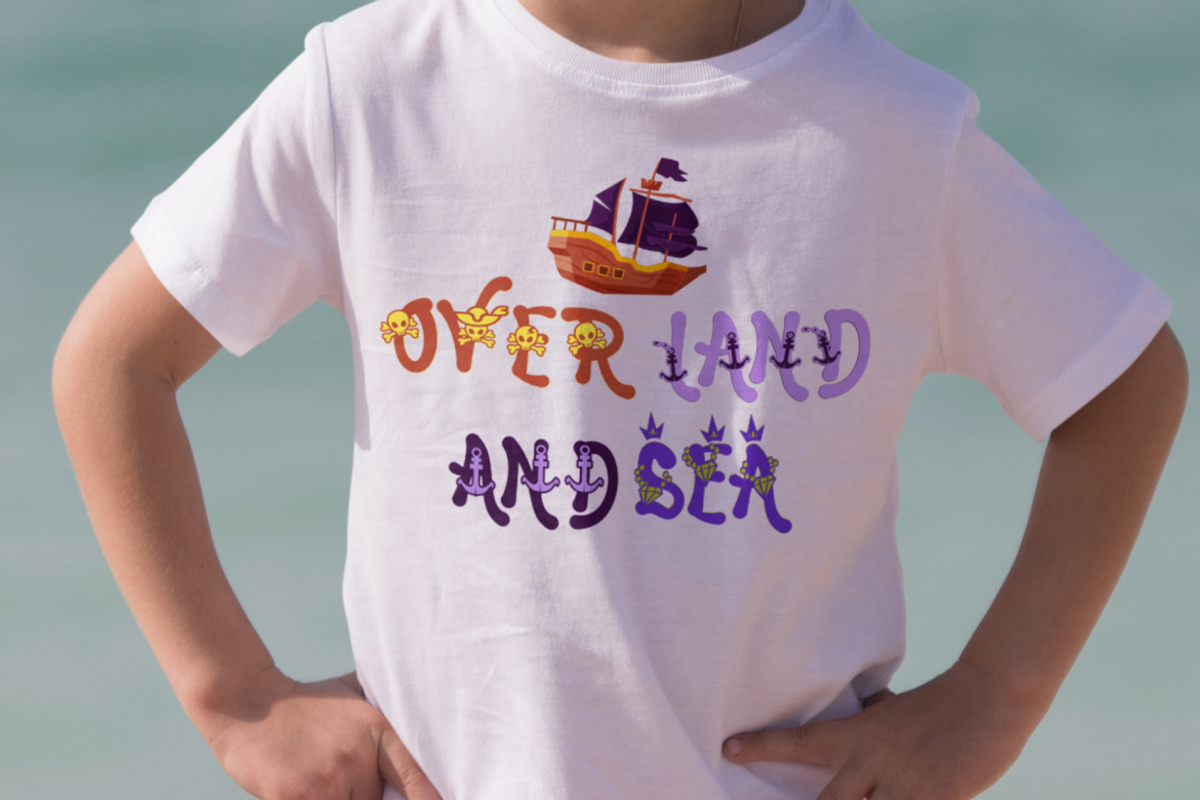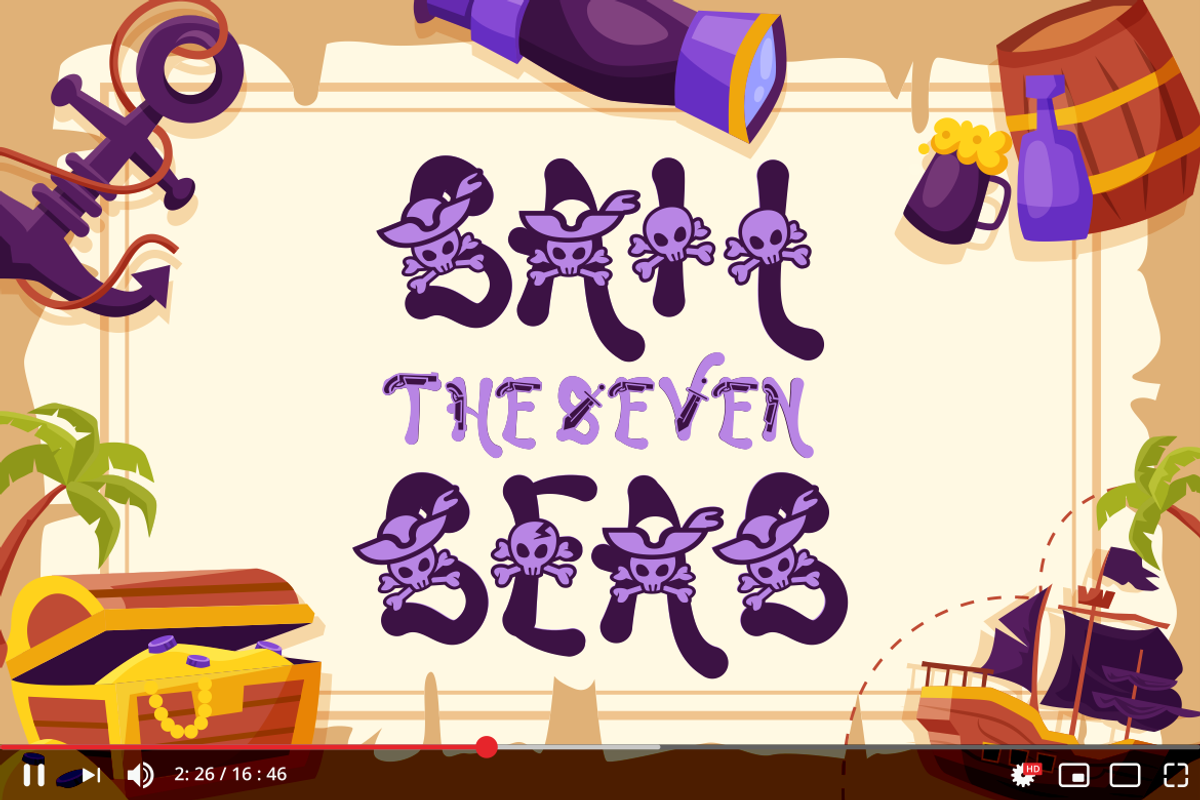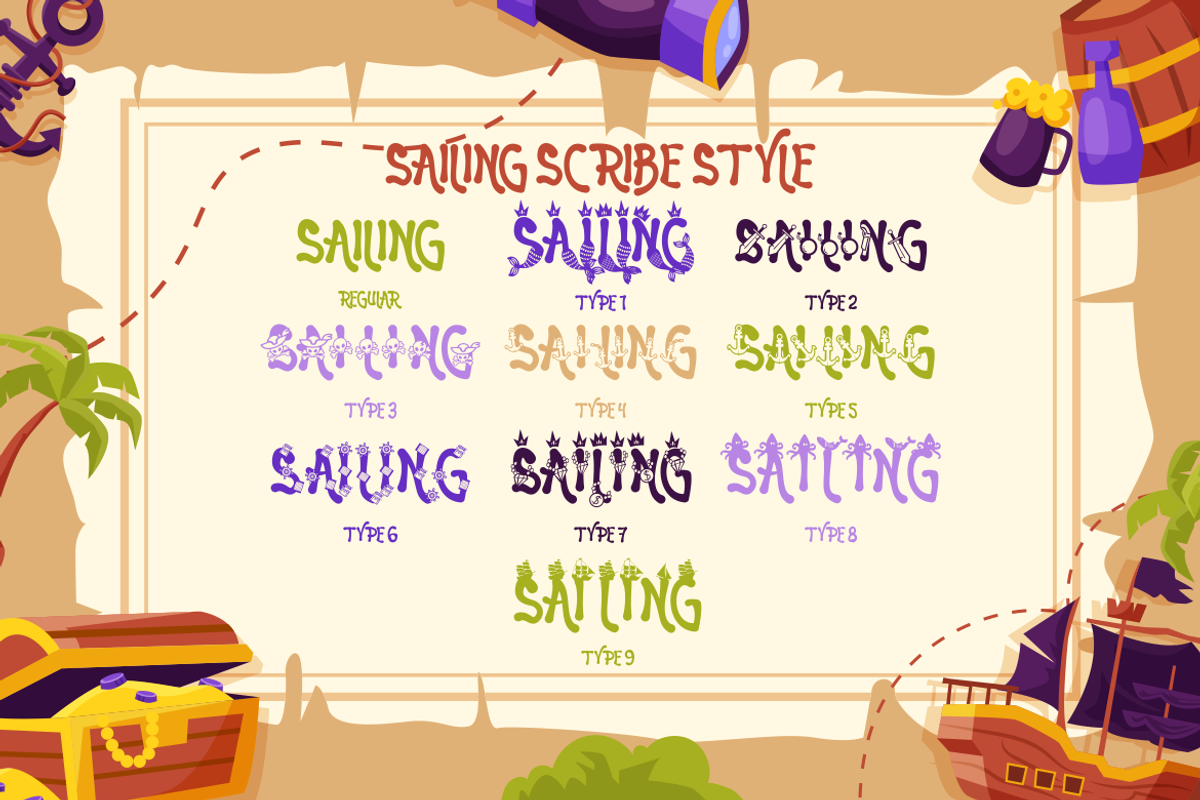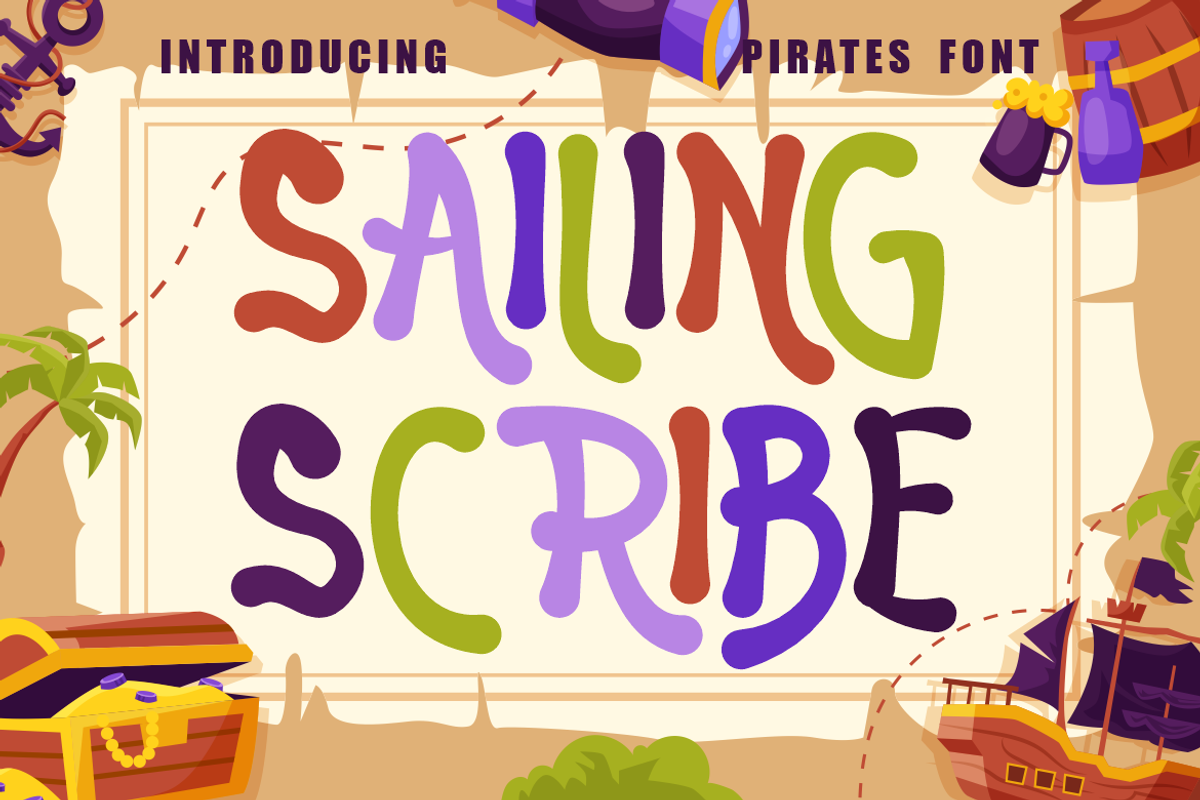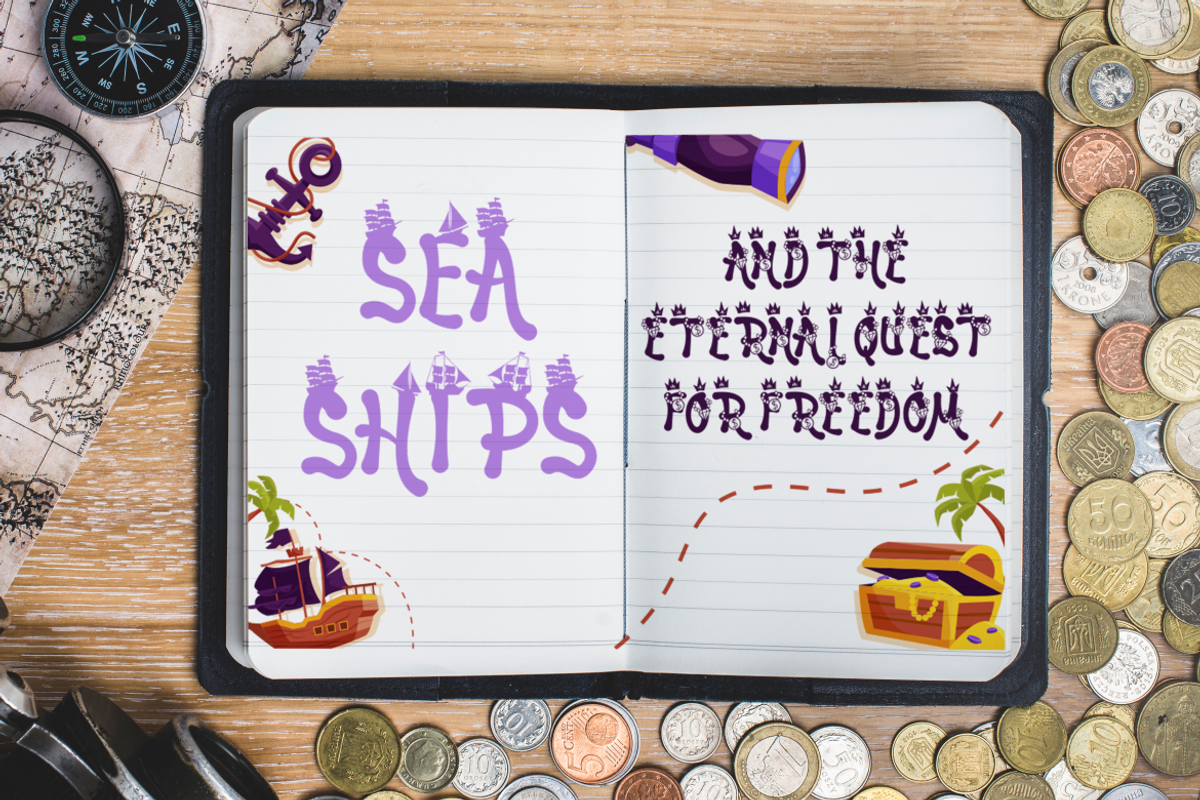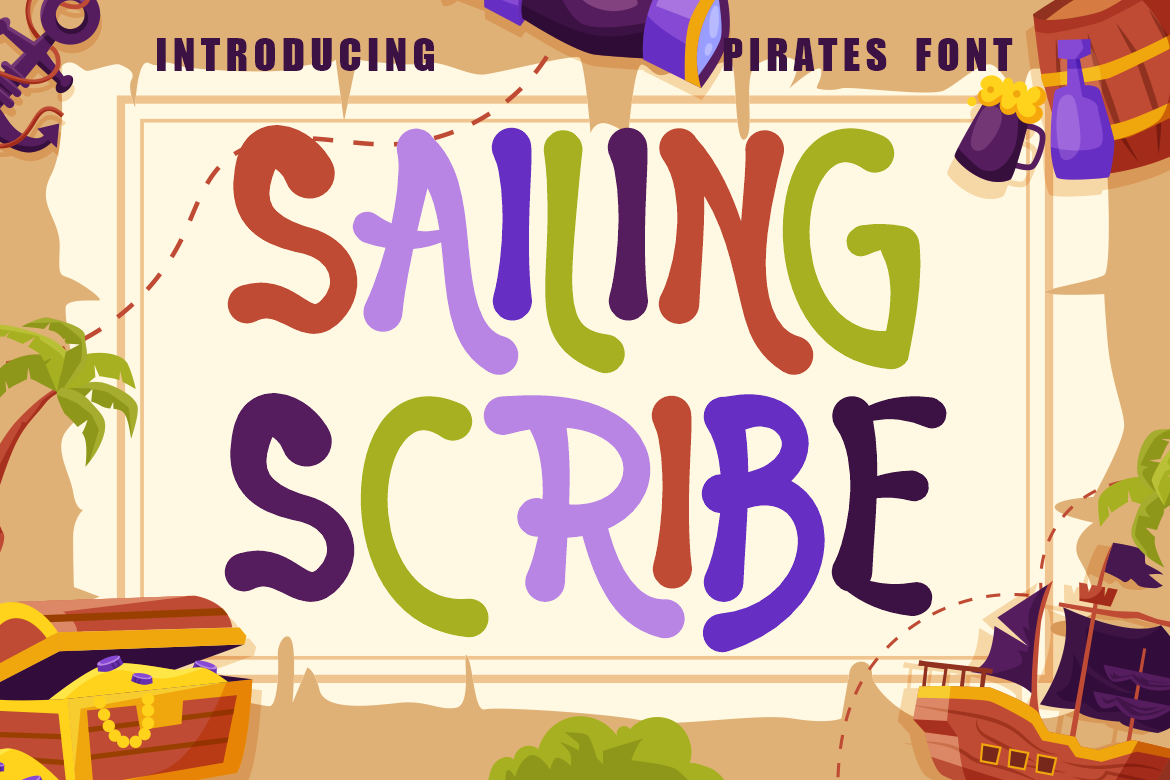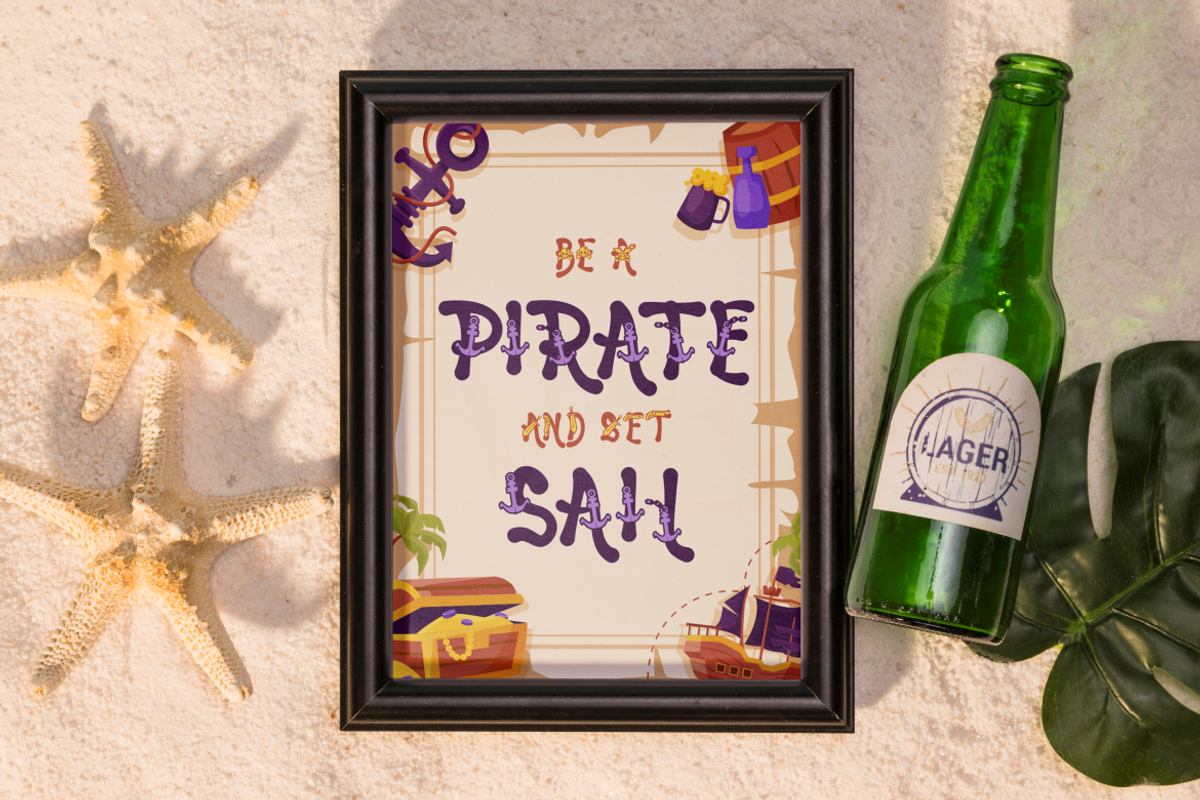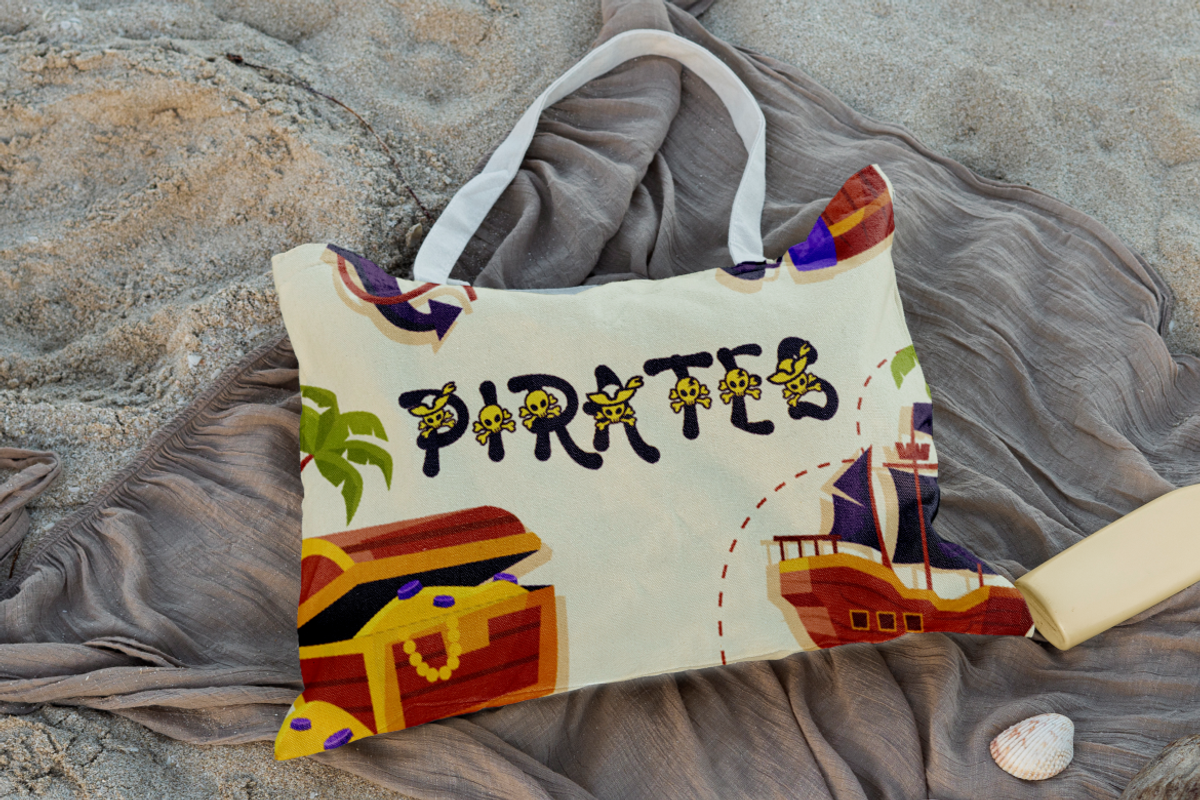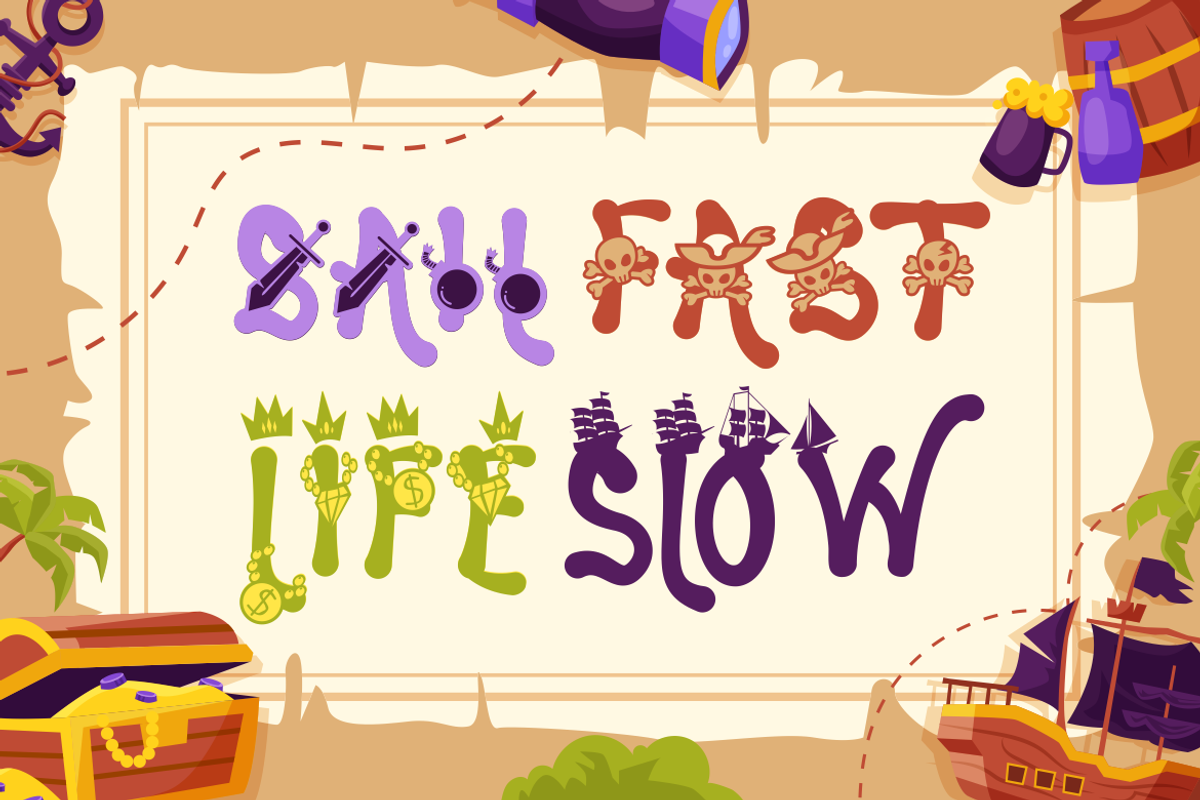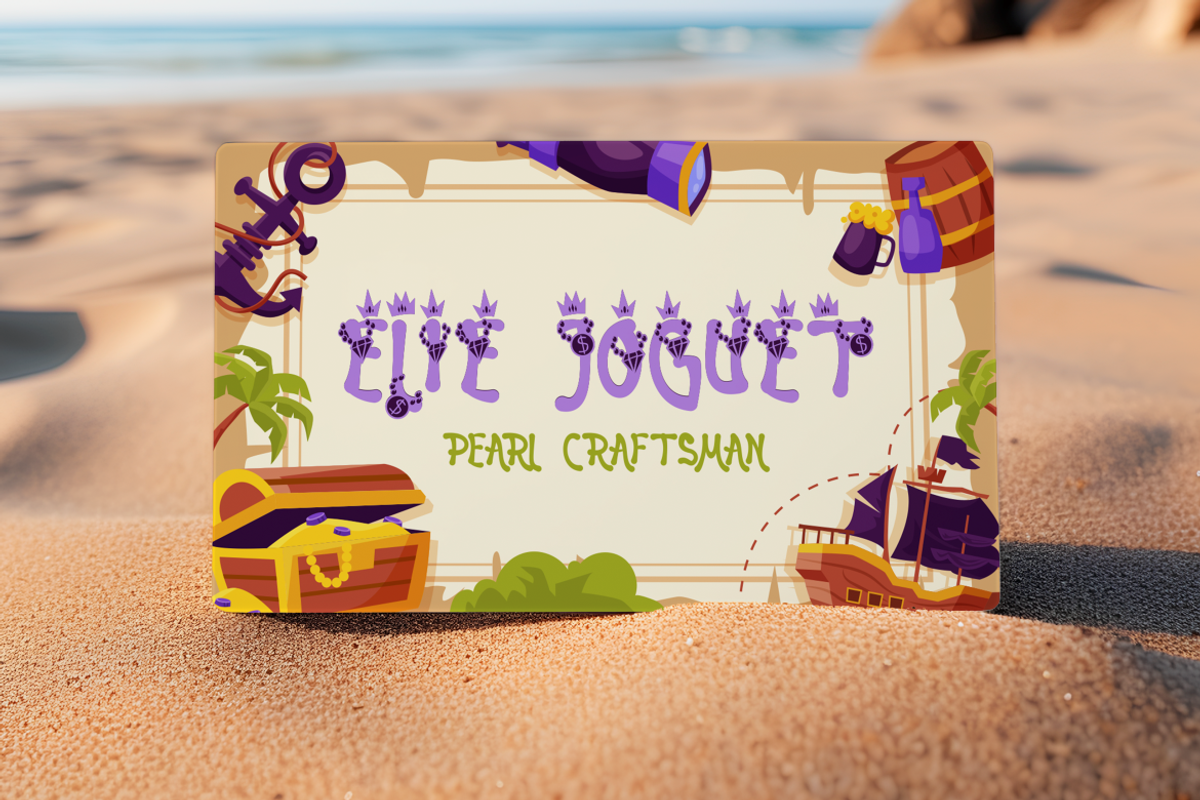
Sailing Scribe - Pirate Font
Embark on a design adventure with Sailing Scribe - Pirate Font, a treasure trove of creativity for your digital font collection. This display font captures the essence of the high seas with its crafty and decorative style, perfect for anyone looking to add a touch of whimsy and playfulness to their projects. Each letter is a work of art, adorned with elements that evoke the spirit of piracy and adventure, making it an ideal choice for designs that require a unique and fun approach.
Whether you’re crafting logos, branding materials, invitations, or packaging, Sailing Scribe - Pirate Font will set your designs apart. Its versatility extends to posters, titles, business cards, greeting cards, stickers, children’s books, magazines, and any other design that sails the thematic ocean of pirates. With this font, your creations will not just speak; they’ll tell a story of excitement and imagination.